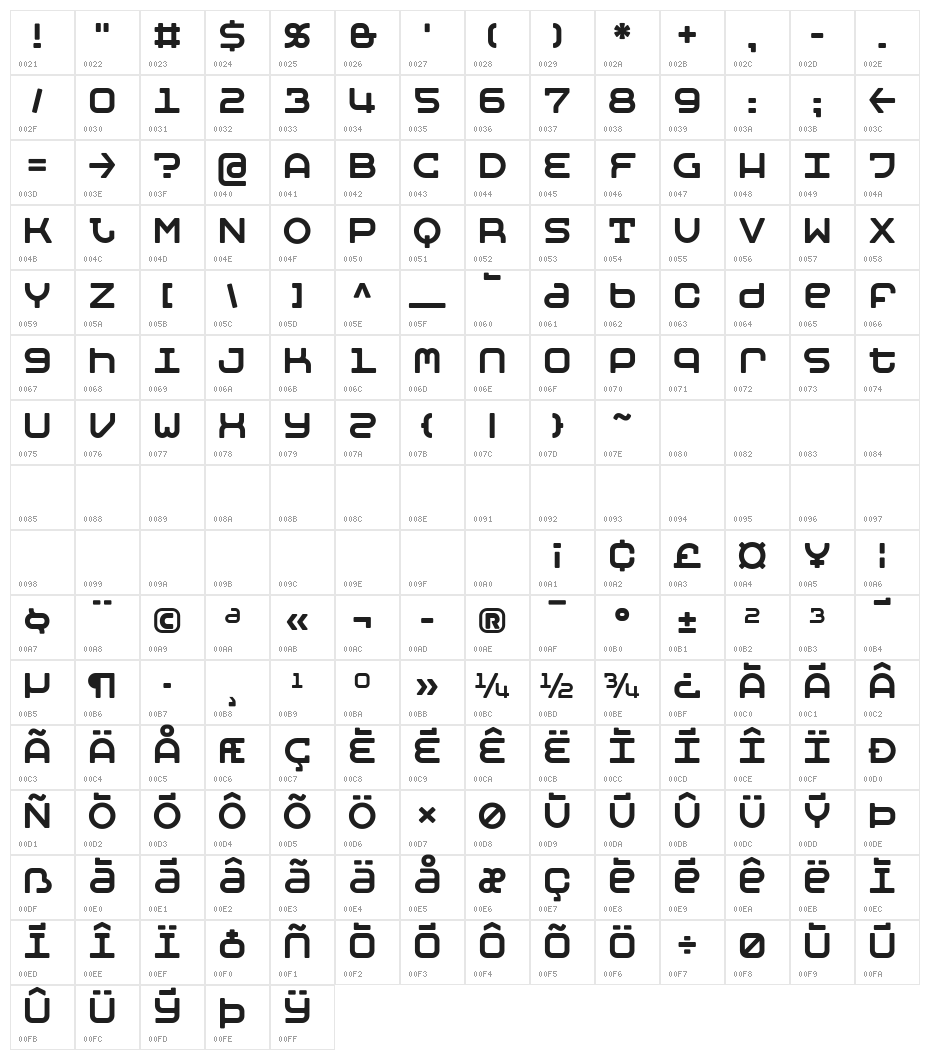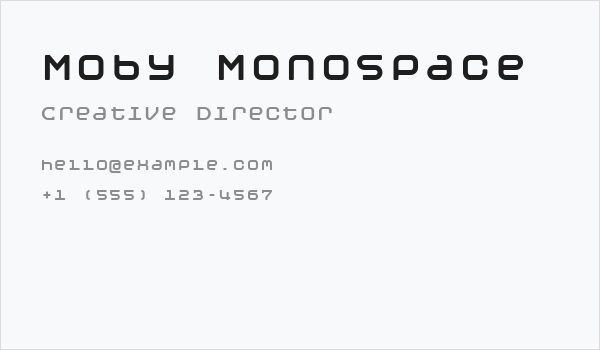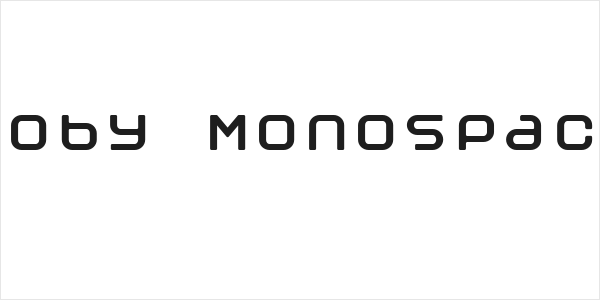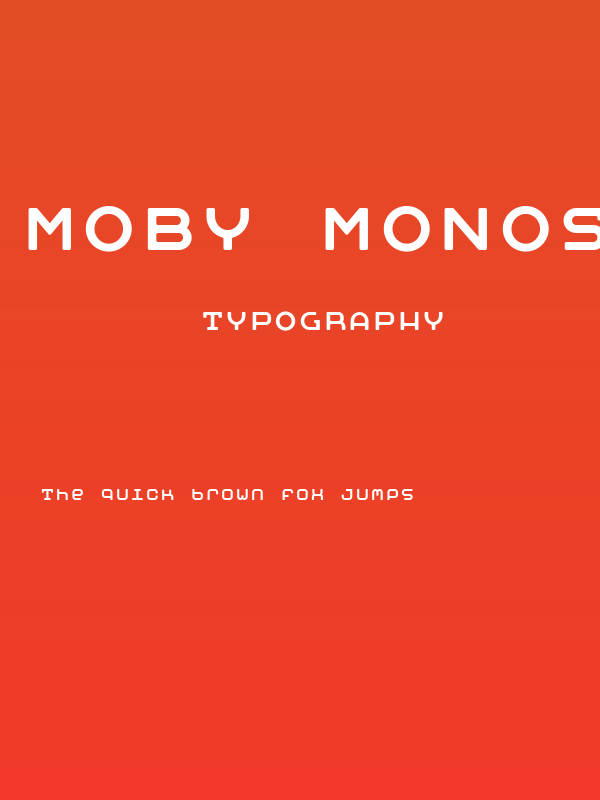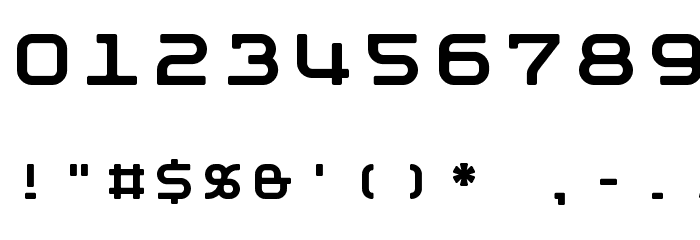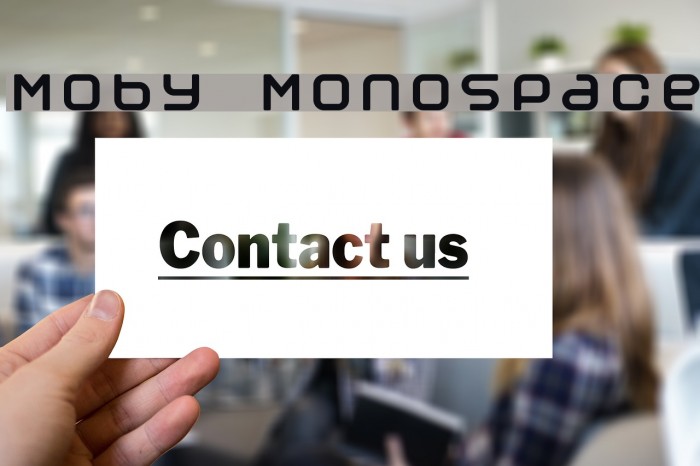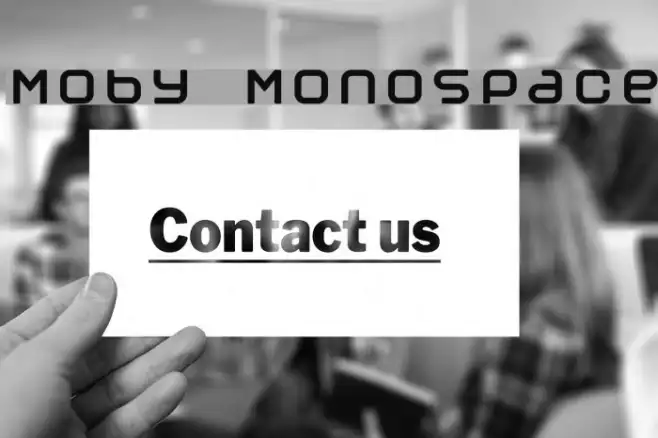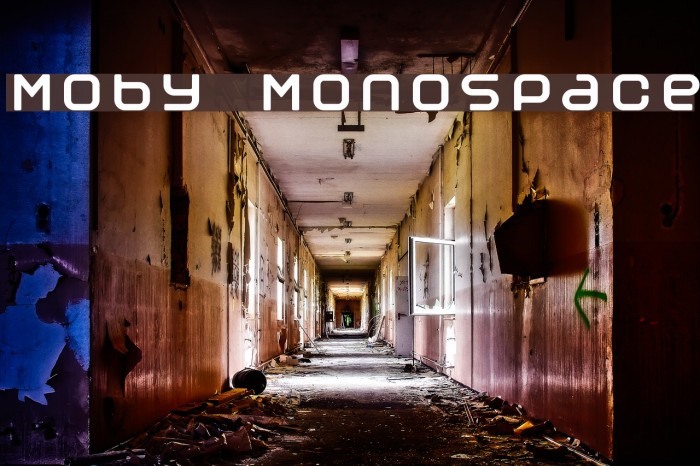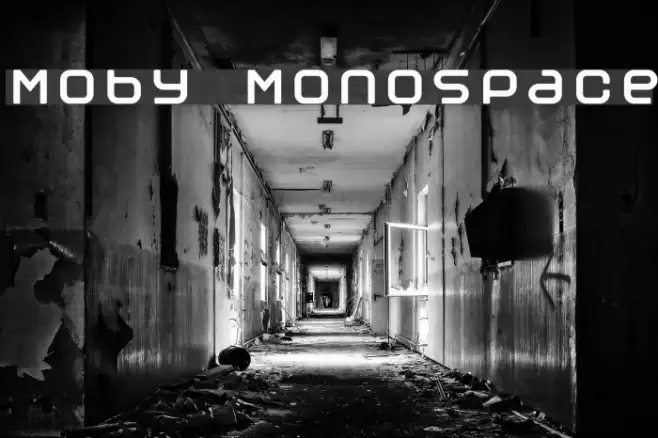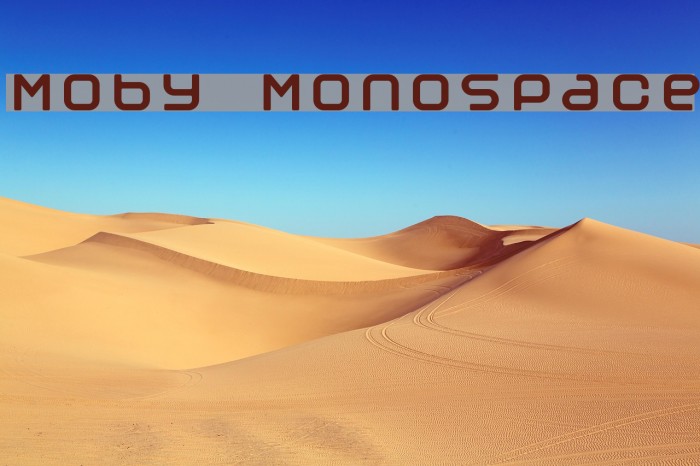
Moby Monospace Font
Moby Monospace Description
This font features a clean, modern design with a monospaced structure, ensuring each character occupies the same amount of horizontal space. It has rounded edges and a geometric feel, giving it a friendly and approachable appearance. The uniformity in character width makes it ideal for coding and technical applications where alignment is crucial. The font maintains a consistent stroke weight throughout, contributing to its legibility and clarity. Its simplicity and straightforwardness make it versatile for various digital and print media.
| Use Case | Coding, Technical documentation, Digital interfaces |
| Proposed Projects | Ideal for coding environments, technical documentation, and digital interfaces requiring precise alignment. |